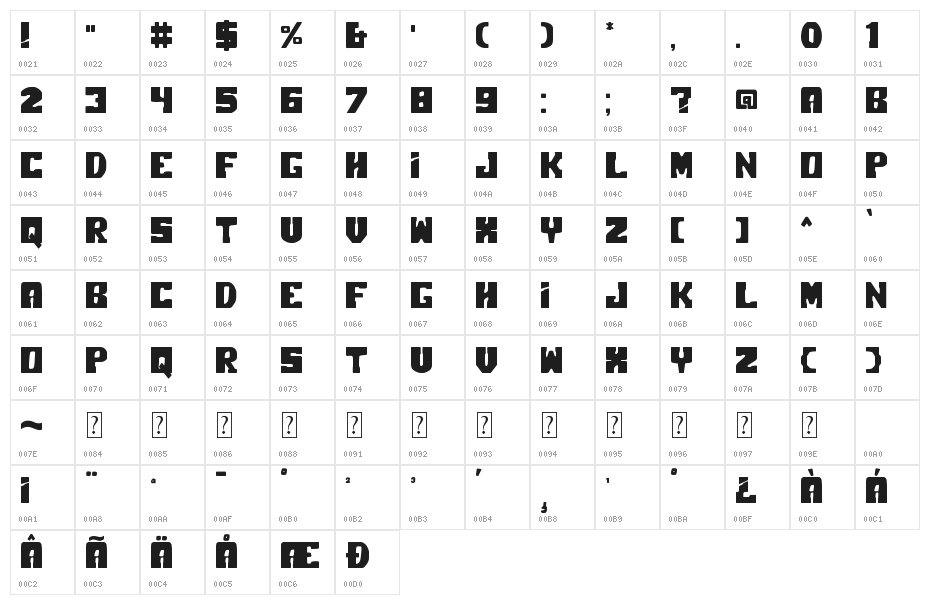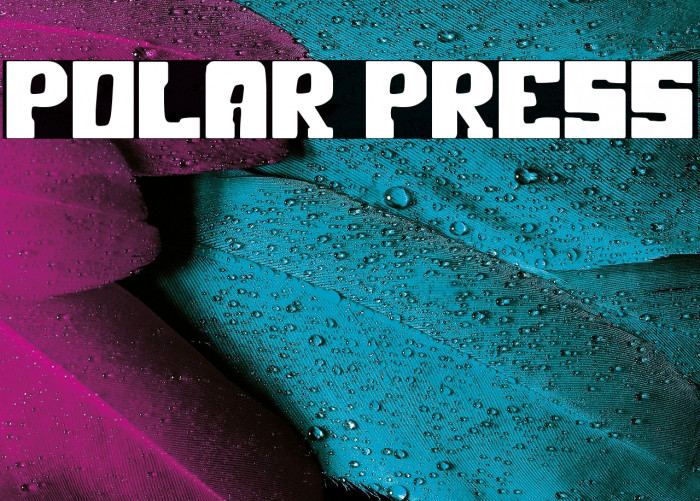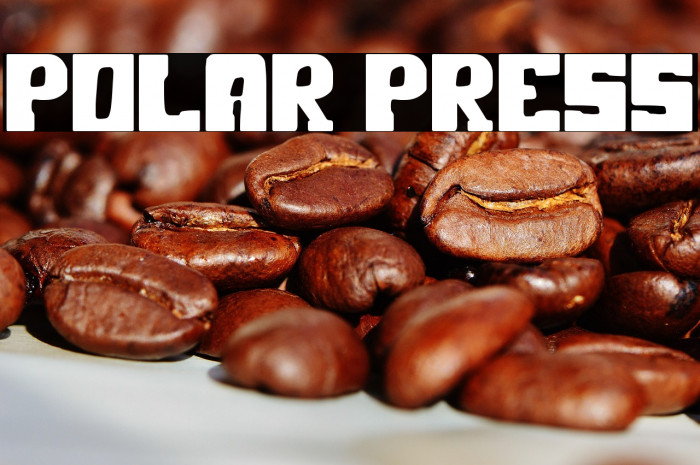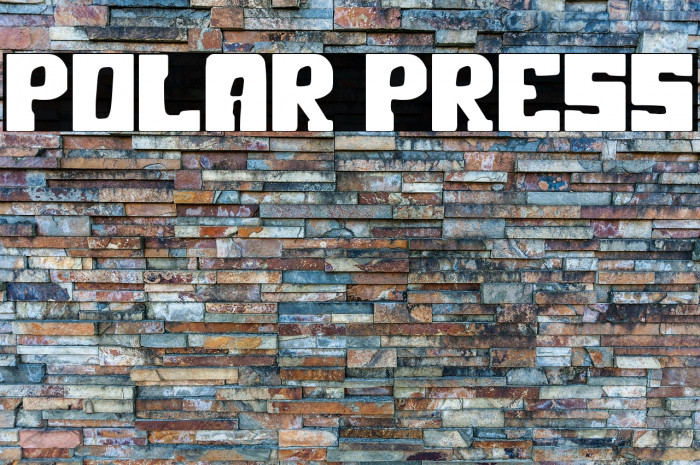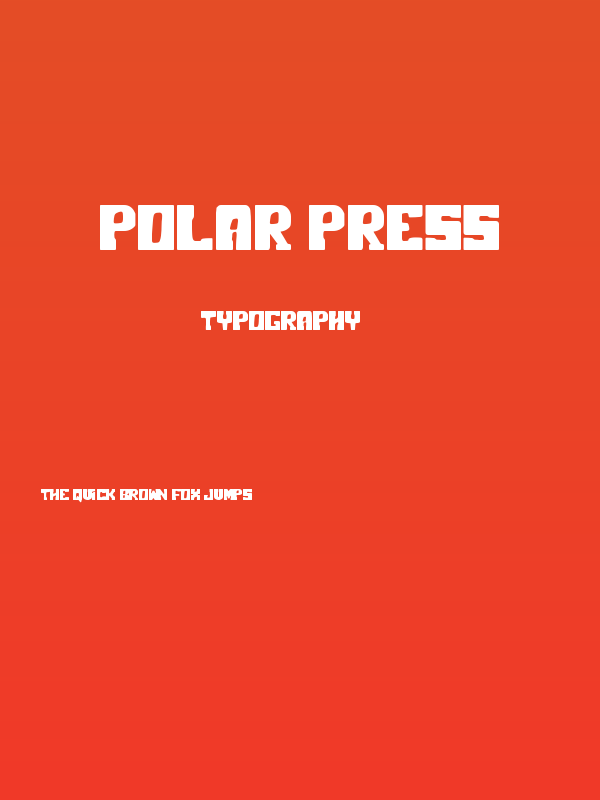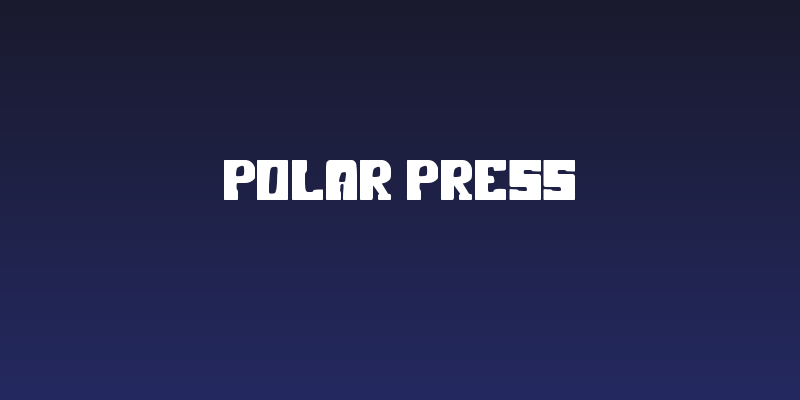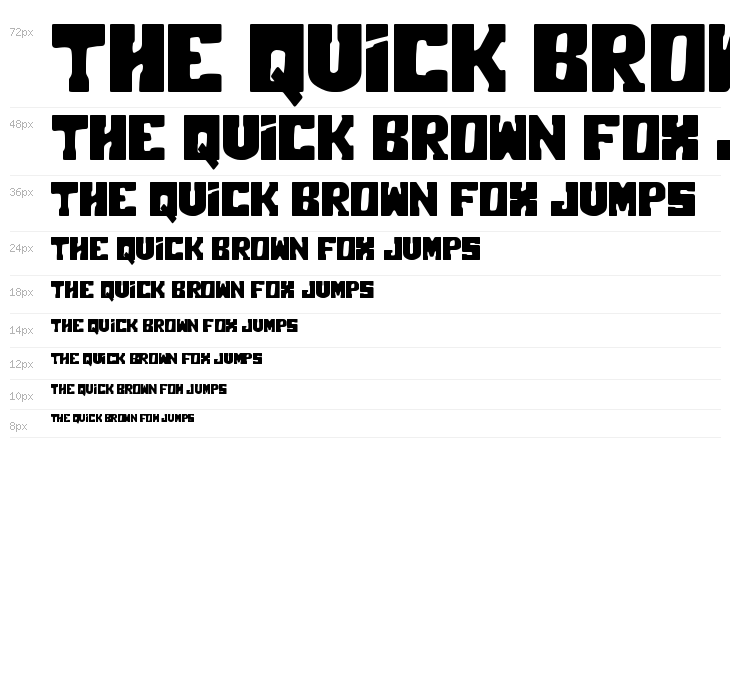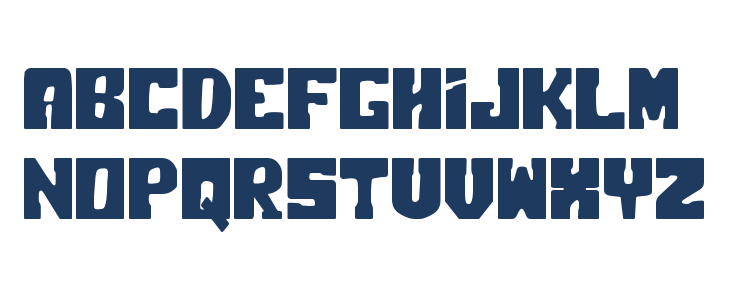
Polar Press Font
Polar Press Description
This font features a bold and impactful design with a strong geometric structure. The characters are blocky and robust, with a distinct industrial feel. The uppercase and lowercase letters maintain a consistent width, creating a uniform appearance. The numbers and special characters follow the same bold style, ensuring cohesion across all elements. The font's design is reminiscent of stencil or military typefaces, making it suitable for projects that require a strong, authoritative presence.
| Proposed Projects | Ideal for posters, logos, branding, and any design requiring a bold, impactful statement. |